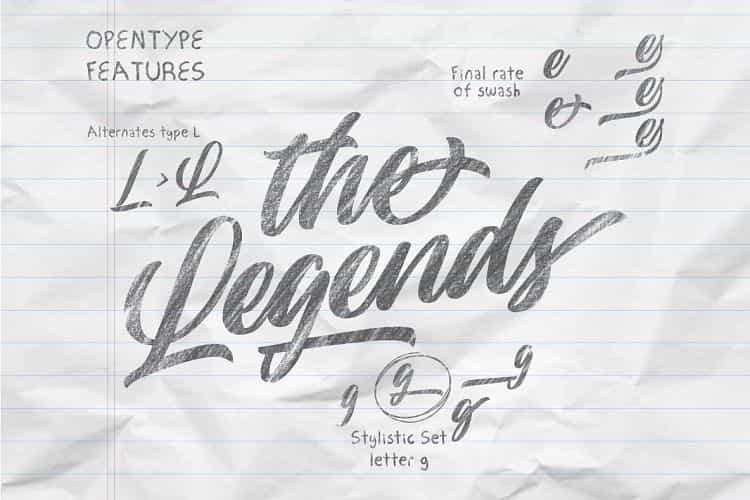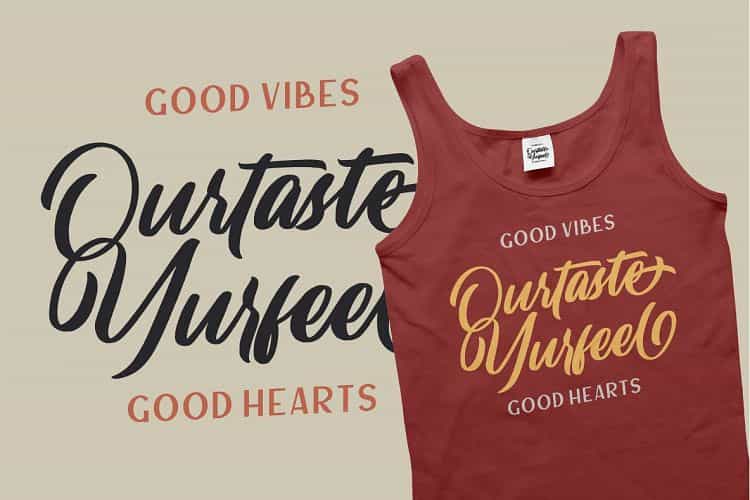
Introducing Lastwinter Font!The Lastwinter is from the hand scratches that to get natural and natural writing. The main vintage theme will become more fascinating if combined with different kinds of Alternates (Uppercase) and also 8 kinds of Stylistic Sets in Lowercase.